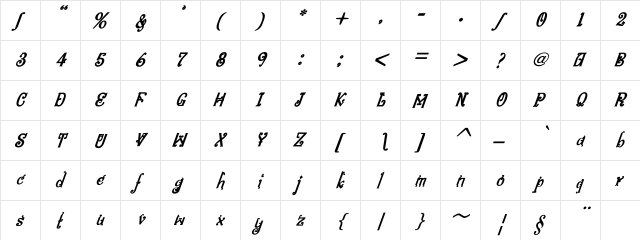
Bitling niks musical Regular
| Foundry | Bitling |
| Designer | Bitling |
Design Context for Bitling niks musical Typeface
Bitling niks musical is a composed and adaptable typeface that performs quietly and consistently across a wide range of design contexts.